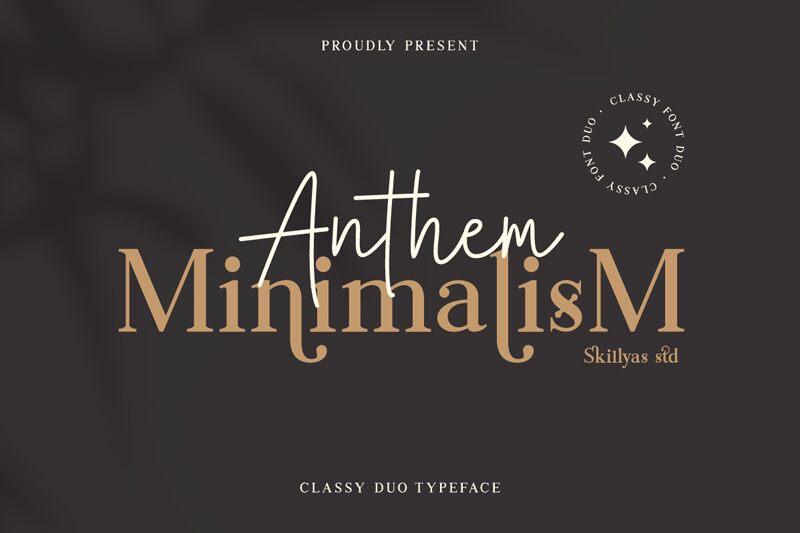
Anthem Minimalism, crafted by the creative minds at skillyasstudio.com, epitomizes the elegance of serif fonts with a contemporary twist. Its crisp lines and understated beauty offer a fresh take on classic typography, making it an excellent choice for designers seeking a blend of tradition and modernity. The font's clean serifs and balanced proportions convey sophistication while maintaining an air of simplicity.
This typeface is versatile enough for branding, editorial design, and upscale advertising campaigns. Anthem Minimalism's timeless allure makes it particularly suitable for luxury branding or any project that demands a touch of finesse without overwhelming visual complexity. Its distinct character ensures legibility across various mediums, empowering creators to communicate with both style and clarity.
Anthem Minimalism